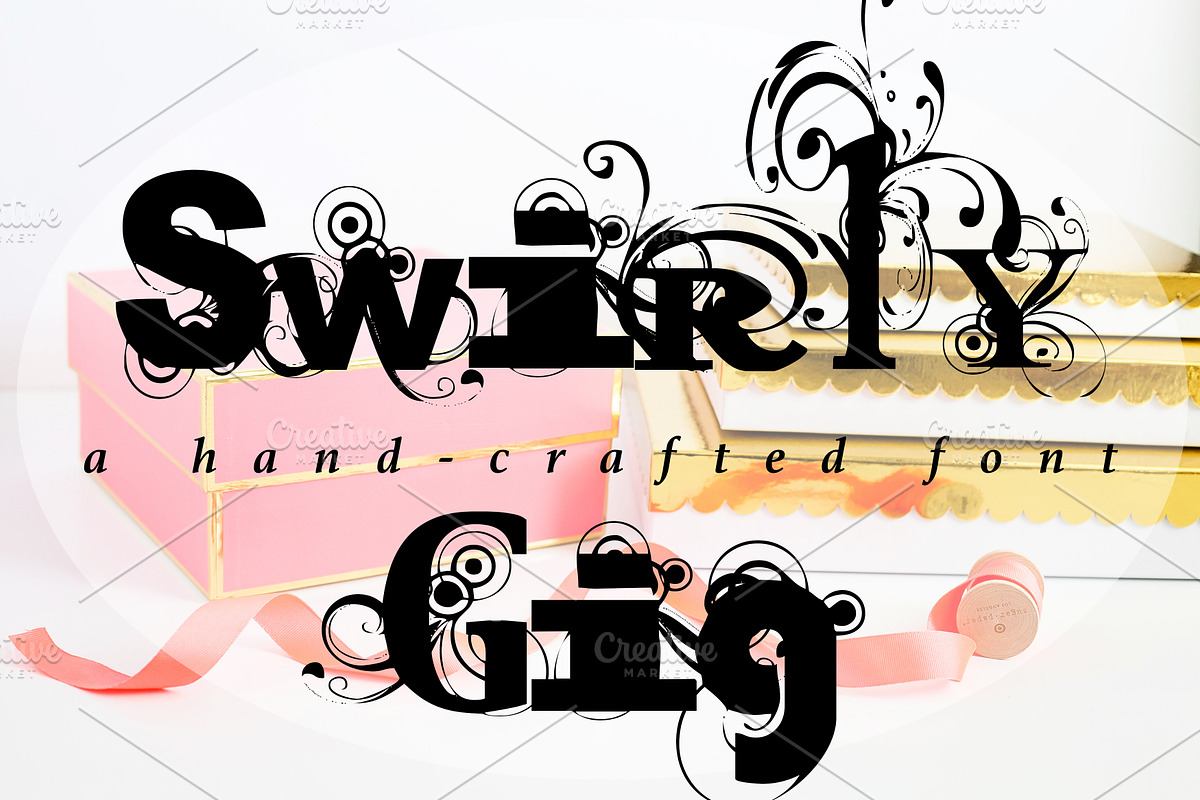
SWIRLY GIG Hand Crafted Font Free Download
The SWIRLY GIG Hand Crafted Font Free Download is a unique and playful hand-crafted typeface that combines whimsical curves and bold strokes. Perfect for creative projects, logos, social media graphics, greeting cards, and any design that needs a personal, artistic touch, this font brings charm and character to your typography.
With its smooth, fluid letterforms and distinct, hand-drawn style, SWIRLY GIG makes your designs stand out while maintaining readability. It includes uppercase and lowercase letters, numbers, punctuation, and multilingual support, making it versatile for various applications.